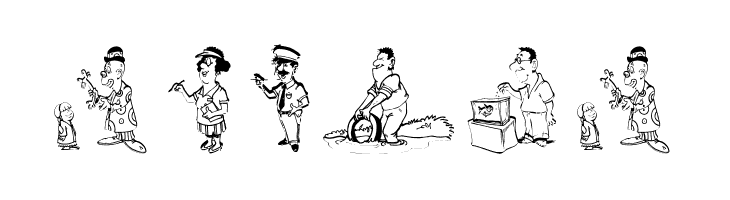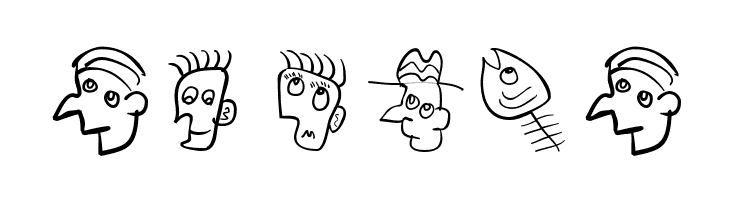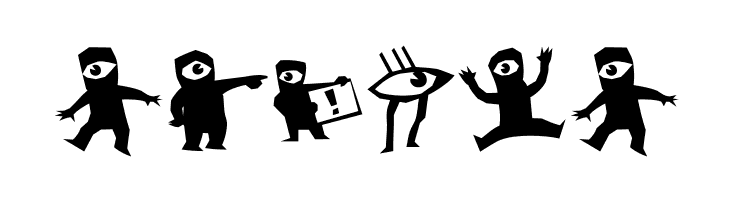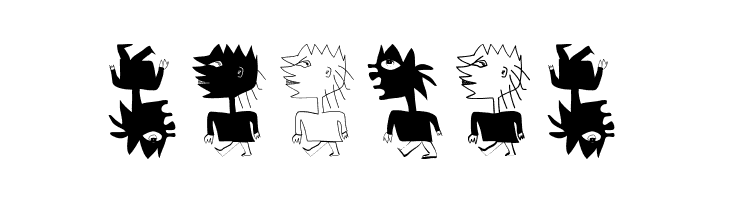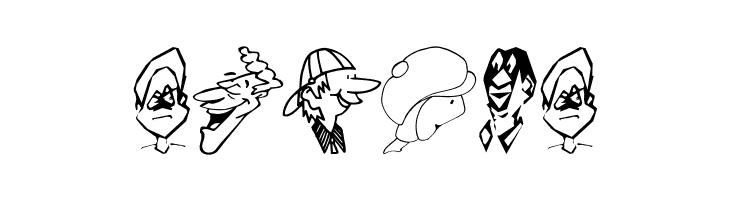
• Services
A cartoonish, illustrative display font with lively, hand-drawn characters.
• Users
Cartoon-style dingbat font with tech and user interaction illustrations.
• WacoheadsTwo
Playful hand-drawn font with cartoon faces as characters.
• Cyclopish
Whimsical dingbat font with cyclops and monster illustrations.
• Spontcomic
Cartoonish, hand-drawn font with energetic, comic character illustrations.
• CartoonHeads
A decorative cartoon head illustration font with playful, expressive faces.
• ComicChars
Cartoonish, hand-drawn character set with a humorous and decorative style.
• CarneVale
Whimsical, cartoon character-based decorative font.
• WaPicts
Hand-drawn, cartoonish decorative font with circular character frames.
• SprayersFriends
Playful stick-figure font with expressive, hand-drawn characters.